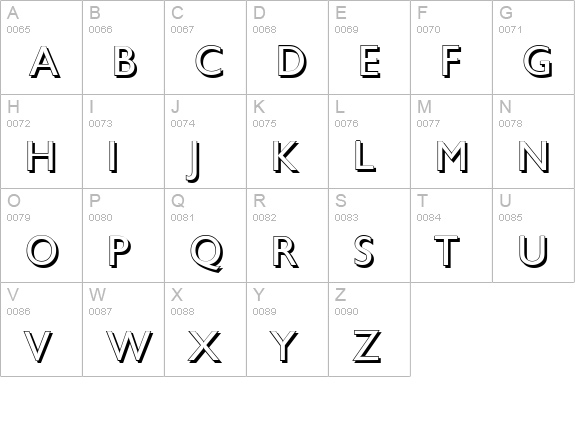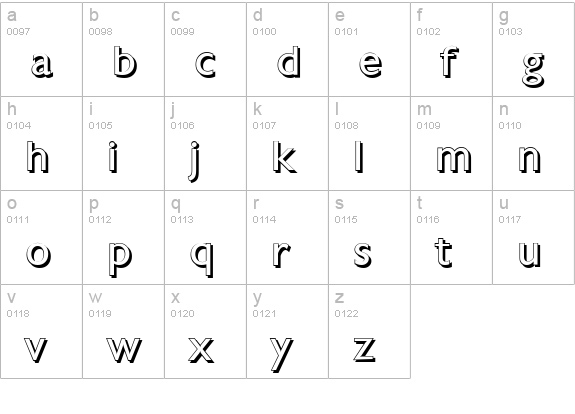
ChantillyShadow-Regular is the standard, neutral variant in the ChantillyShadow typeface family \xE2\x80\x94 well suited to general body text, paragraphs, and standard typographic work.
ChantillyShadow-Regular font is a stunning display typeface that combines elegance and modernity. Its intricate design features delicate shadow effects that add depth and sophistication to any project. The graceful curves and fine details of this font make it perfect for creating eye-catching headings, titles, and logos. What makes ChantillyShadow-Regular font even more appealing is that it is completely free to download. You can easily access this beautiful typeface at FontsMarket.com and enhance your designs with its unique style. Whether you are working on a website, a poster, or a branding project, ChantillyShadow-Regular font is sure to make a statement and leave a lasting impression on your audience. Download it today and elevate your design to the next level!